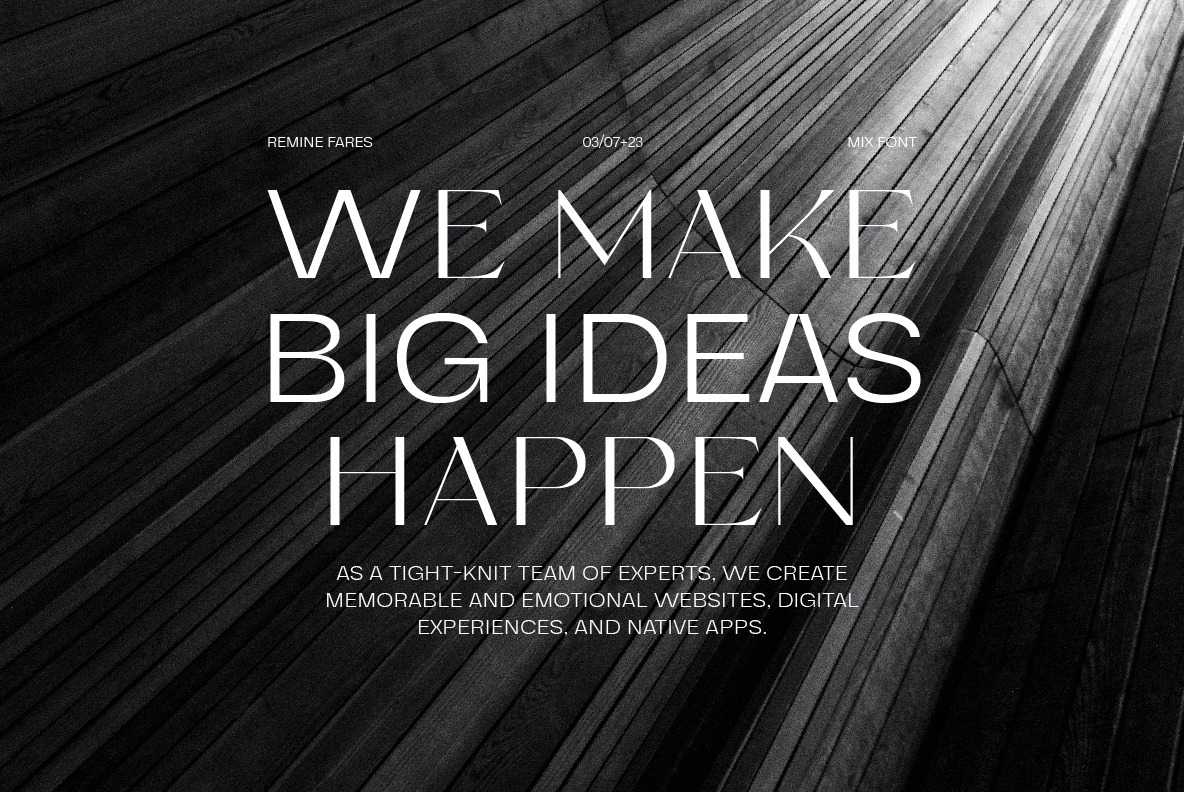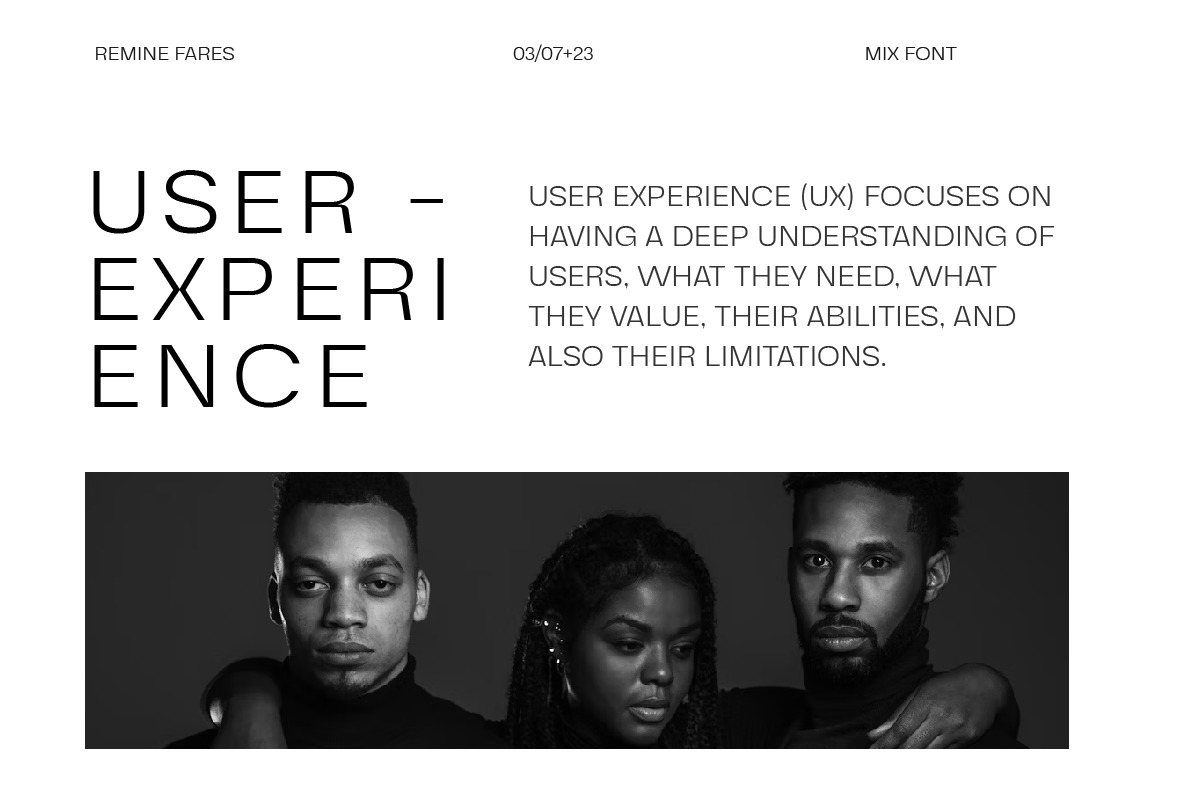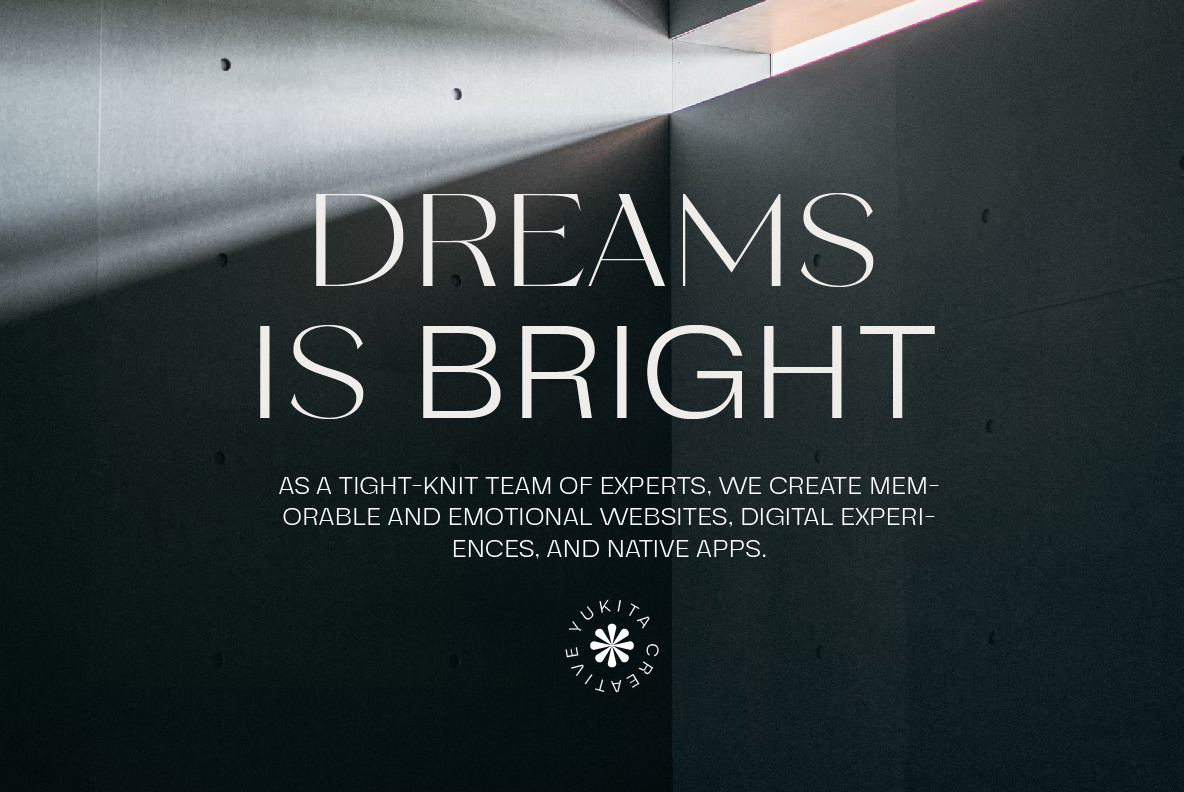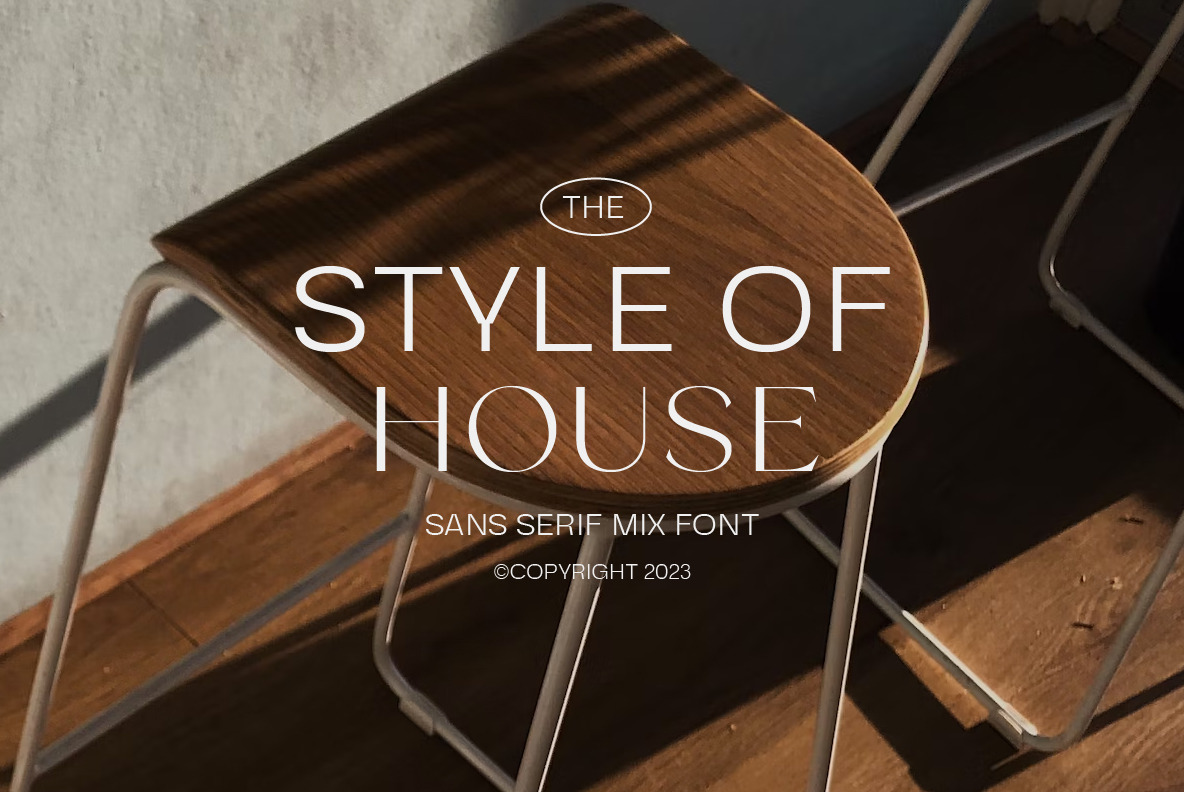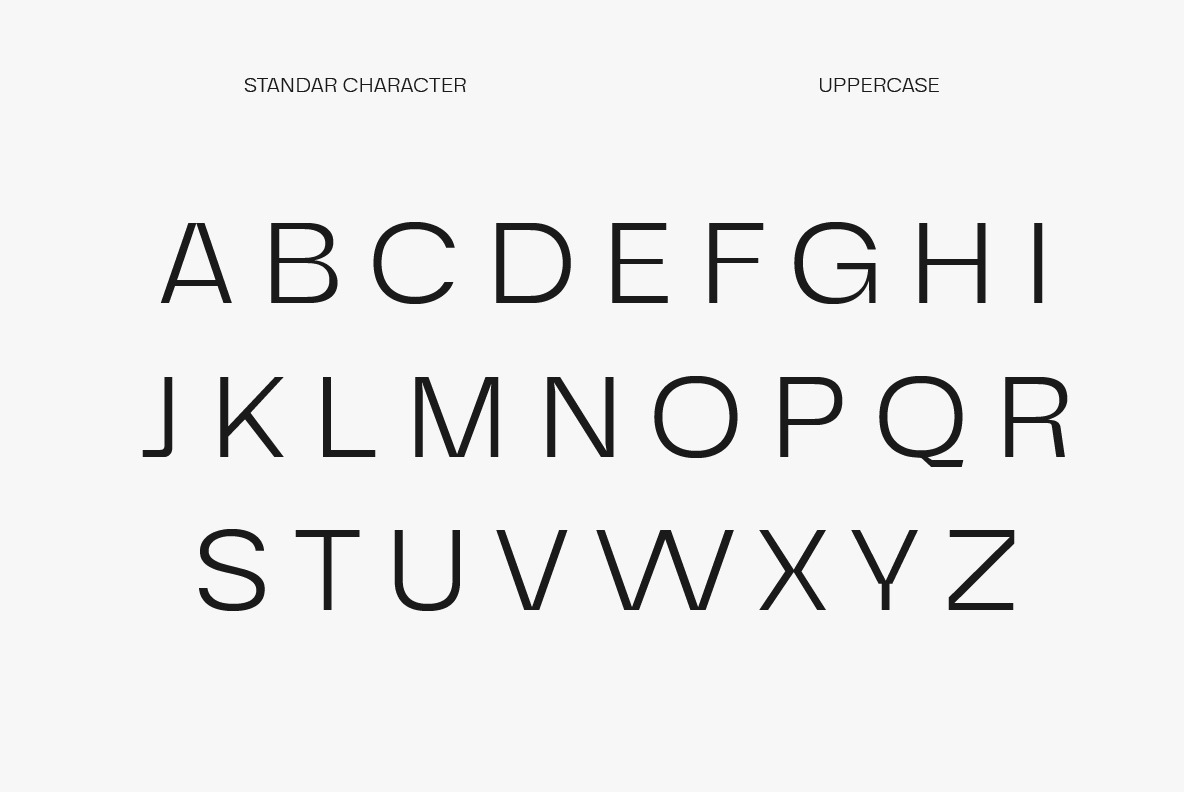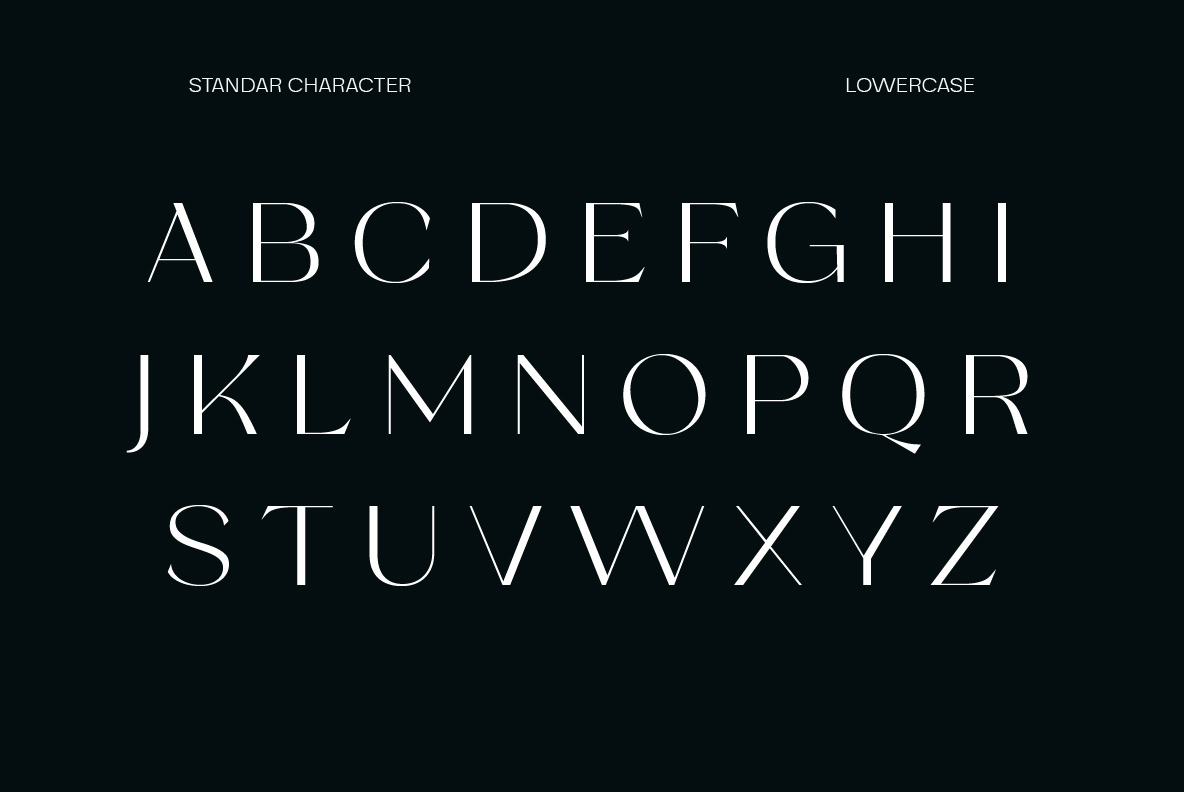
Remine Fares Mix Font
Remine Fares Mix Font is a font that combines the uniqueness and beauty of two different font styles, namely sans serif and serif, in one harmonious font. With this combination, this font provides flexibility and unlimited possibilities in expressing creativity and creating attractive design looks.
The sans serif section of the Remine Fares Mix Font offers a clean, modern, and minimalist feel. The letters have straight, bold lines, creating a simple but striking impression. This style is perfect for design projects that need a simple but modern look, such as bold titles or text that needs simplicity.
With a seamless blend of sans serif and serif in one font, Remine Fares Mix Font provides the ability to combine these two styles in one design composition. You can use sans serif to highlight important points or create easy-to-read text, while serifs can be used to add an artistic touch or create an interesting focal point.